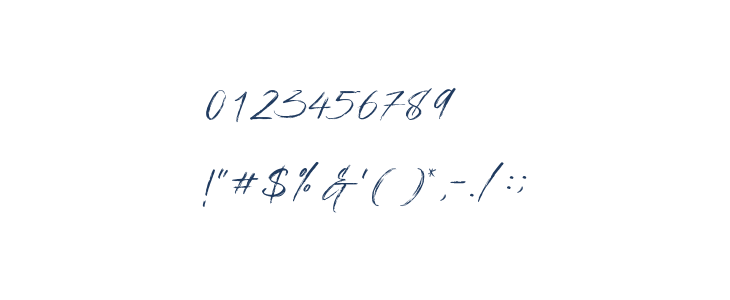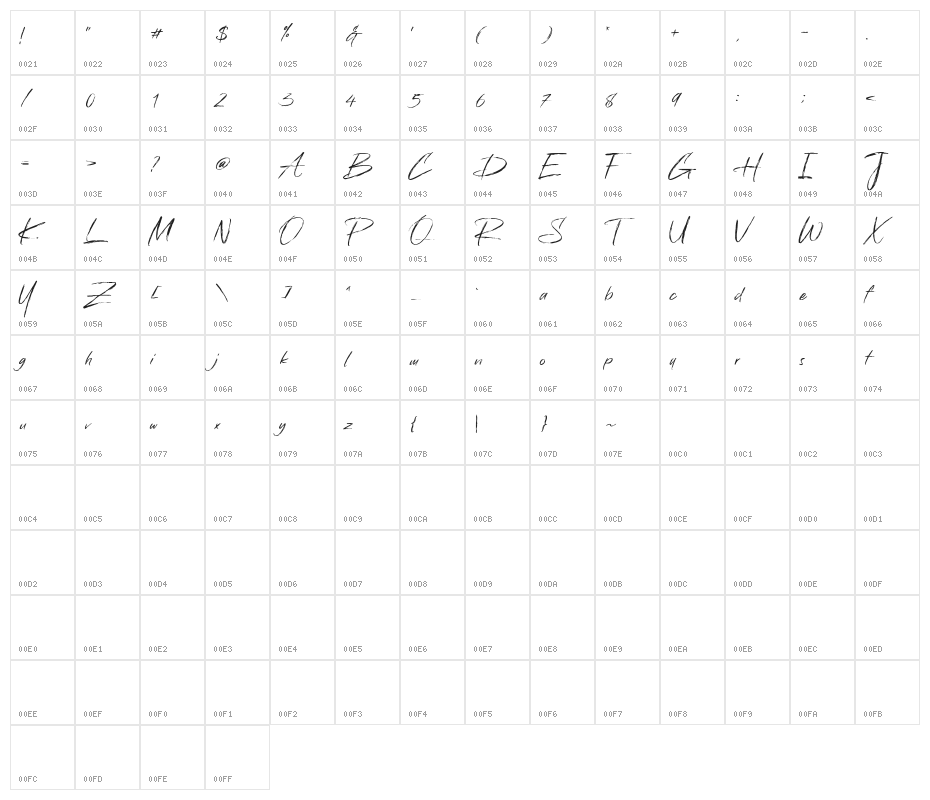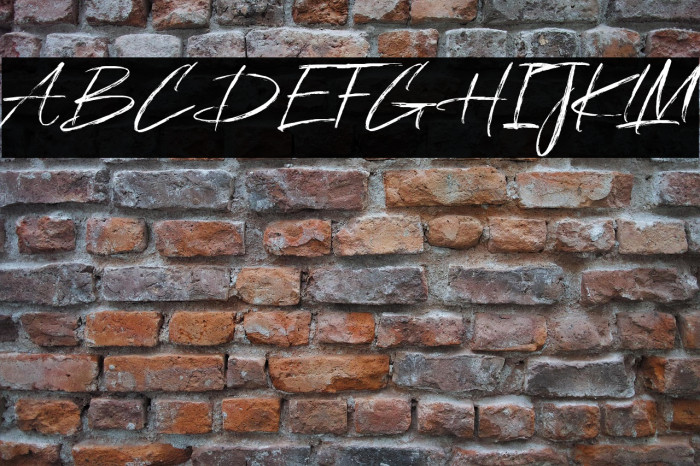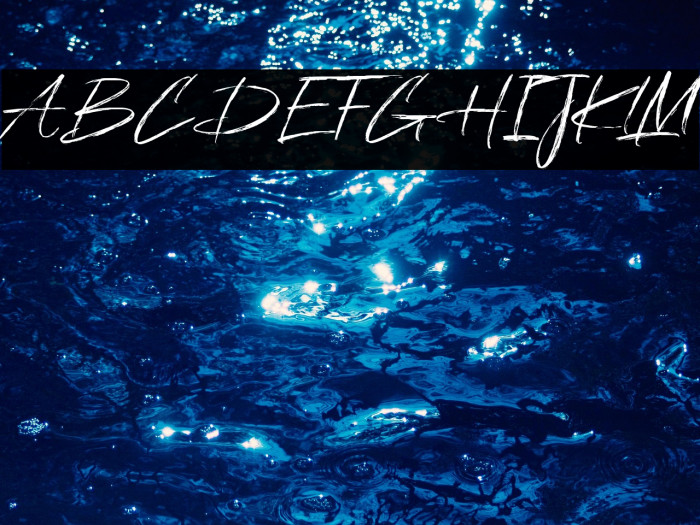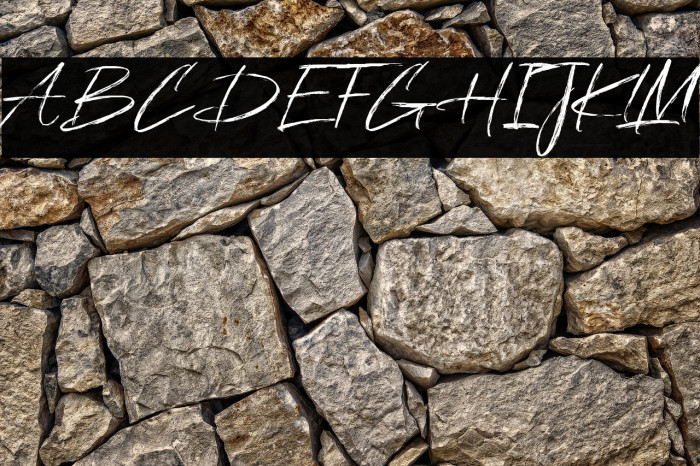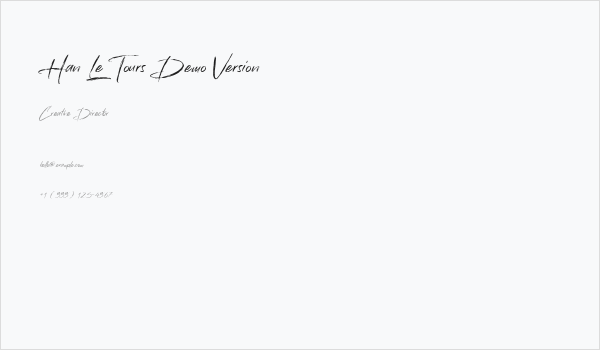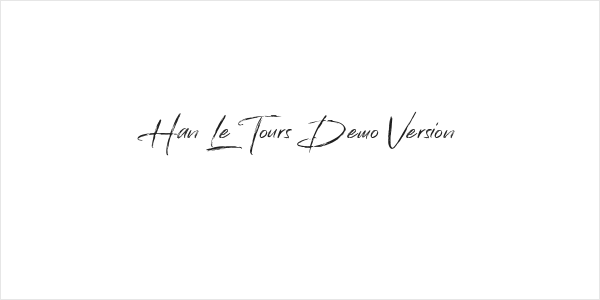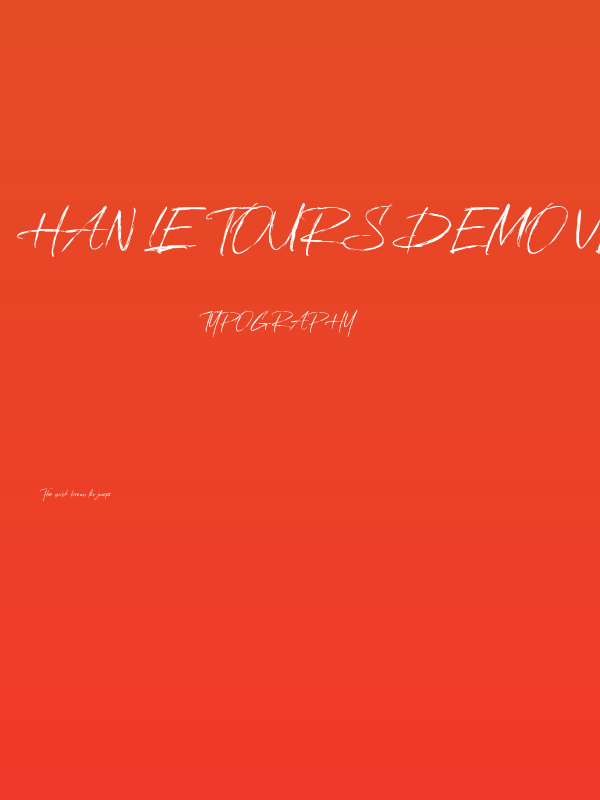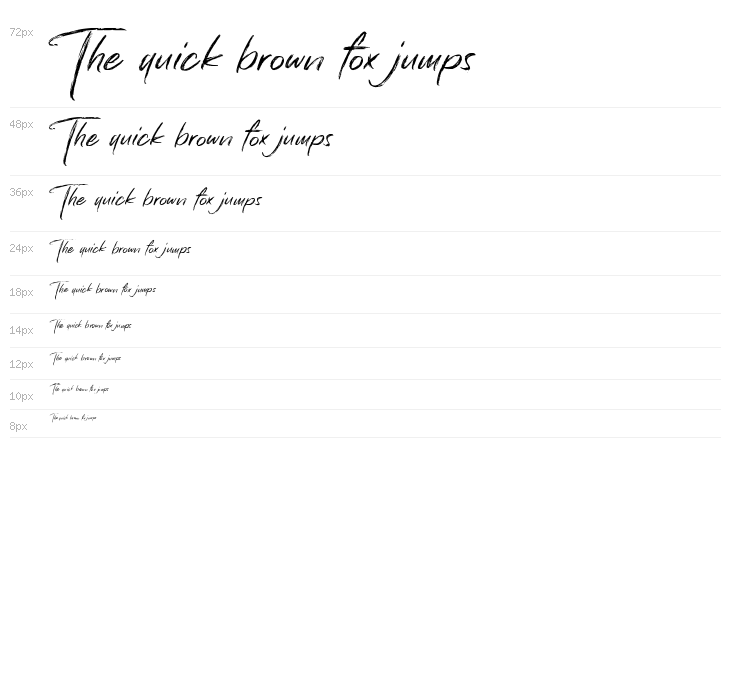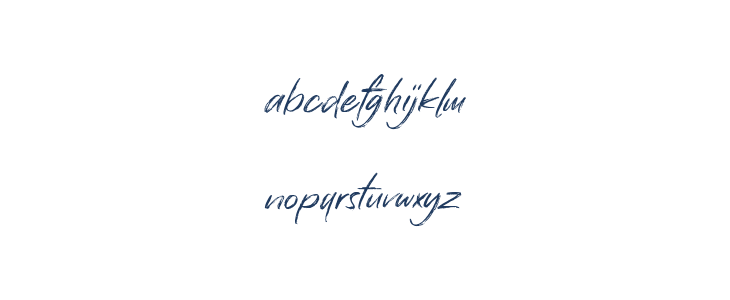
Han Le Tours Demo Version Font
Han Le Tours Demo Version Description
This font features a dynamic and expressive handwritten style, characterized by its fluid strokes and artistic flair. The uppercase letters are bold and sweeping, with a sense of movement that adds energy to the text. The lowercase letters maintain a consistent flow, complementing the uppercase with their slightly more restrained yet still lively appearance. Numbers and special characters follow the same aesthetic, ensuring a cohesive look across all text elements. The overall design is both elegant and casual, making it suitable for projects that require a personal touch.
| Use Case | Logos, Invitations, Greeting cards |
| Proposed Projects | Ideal for invitations, greeting cards, branding projects, and any design that benefits from a personal, artistic touch. |